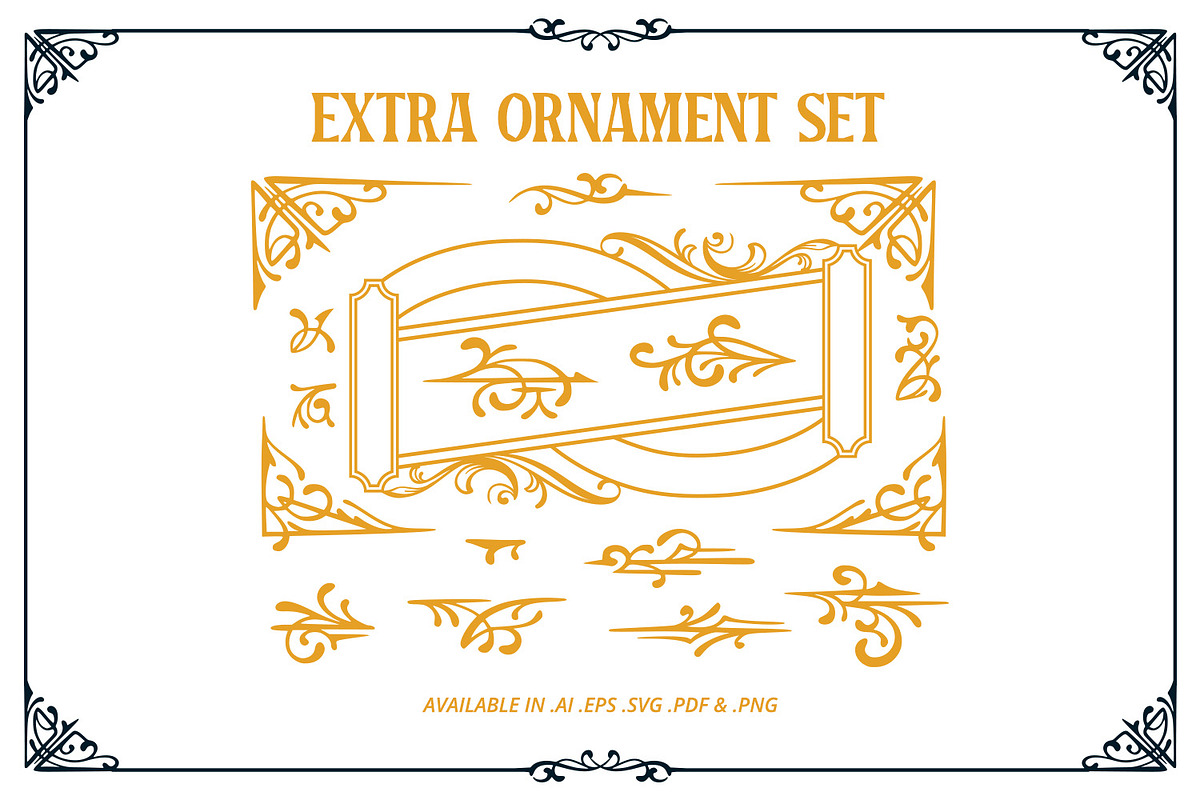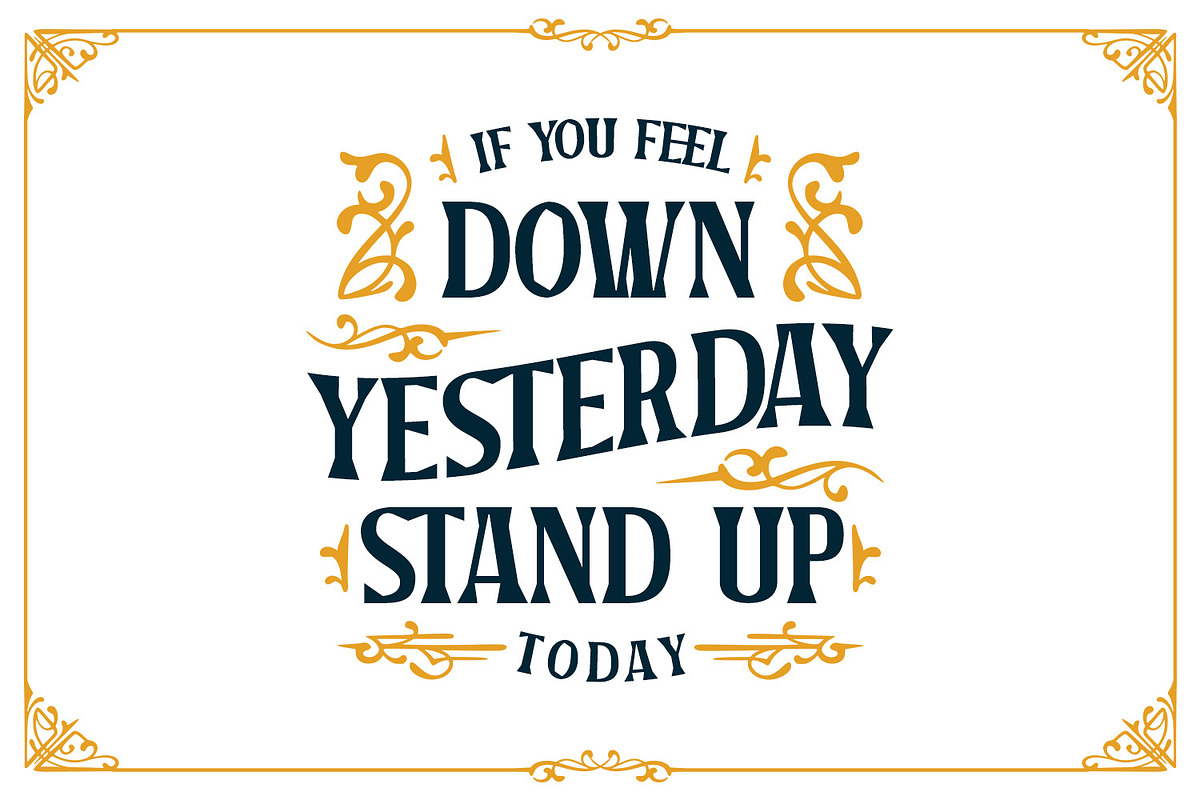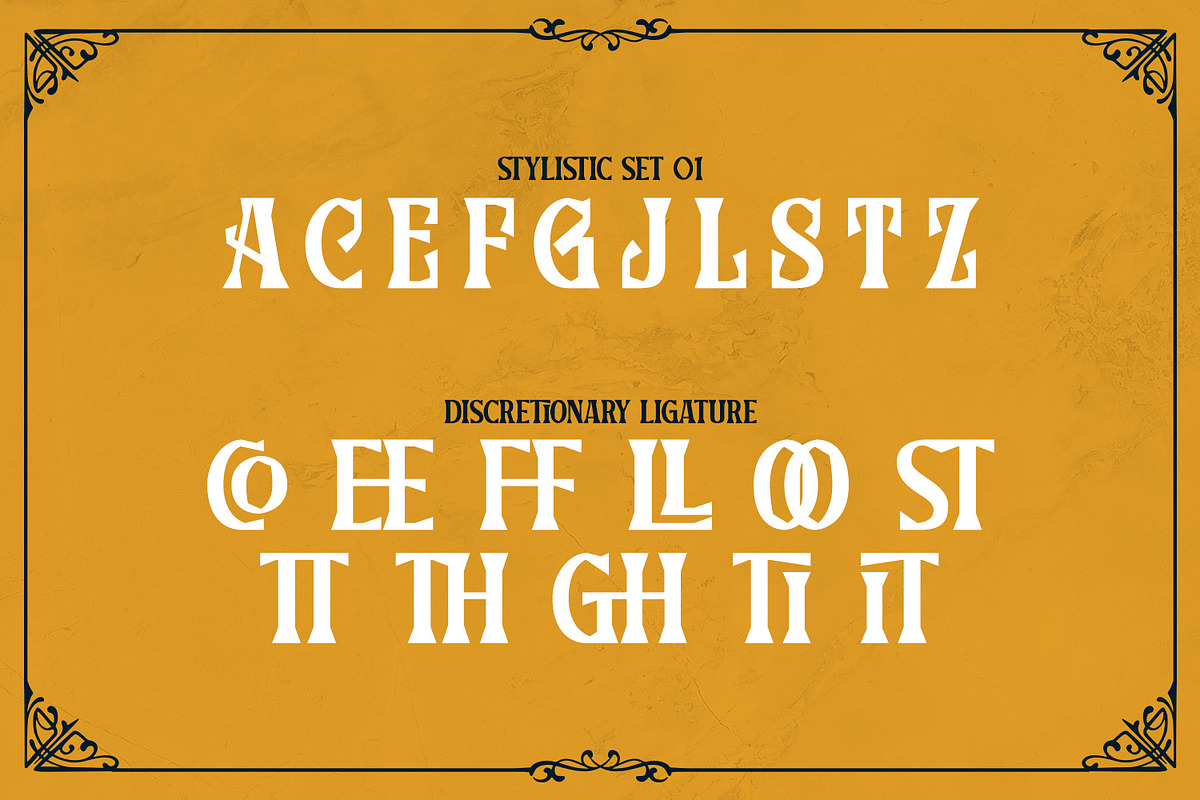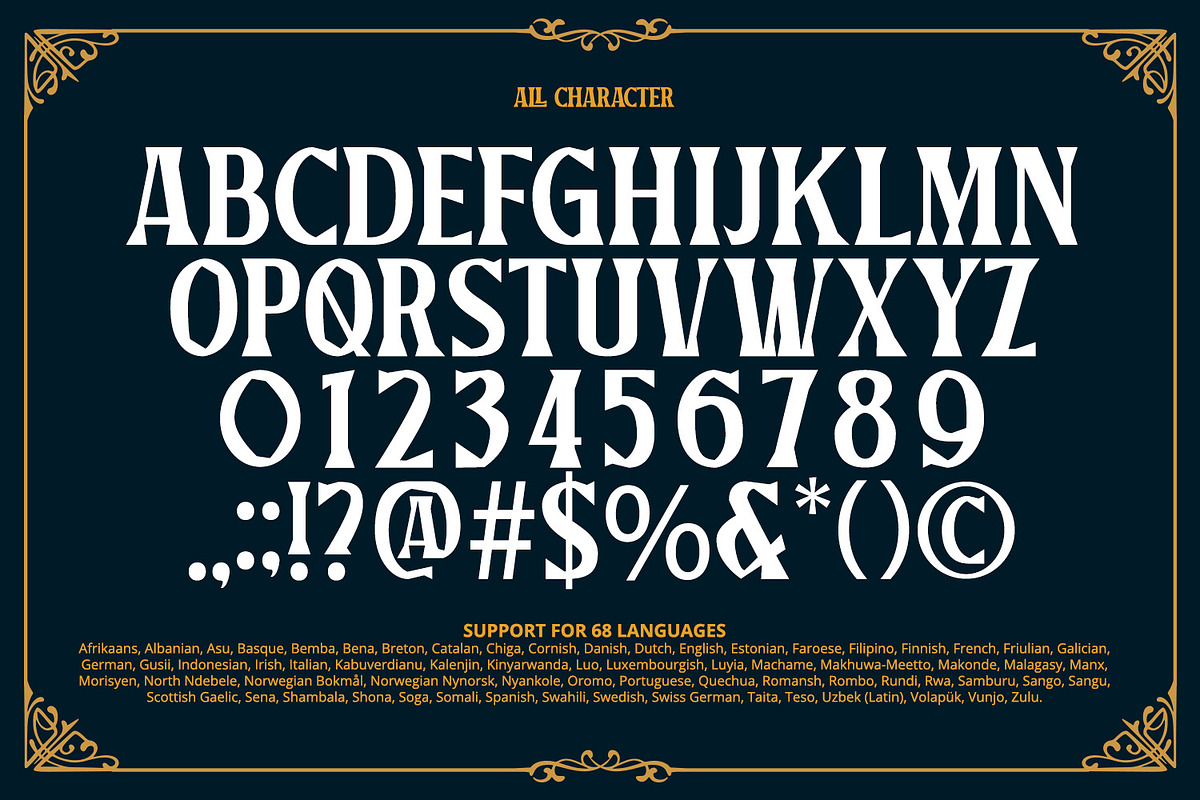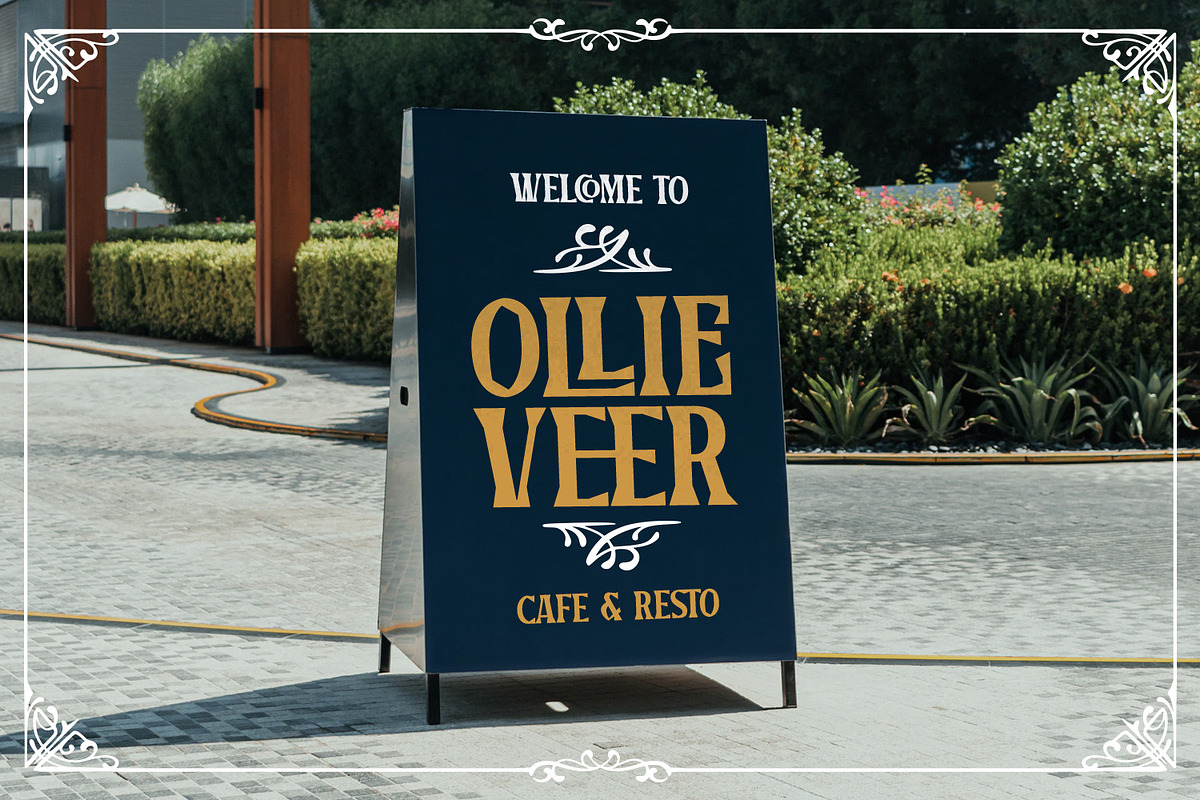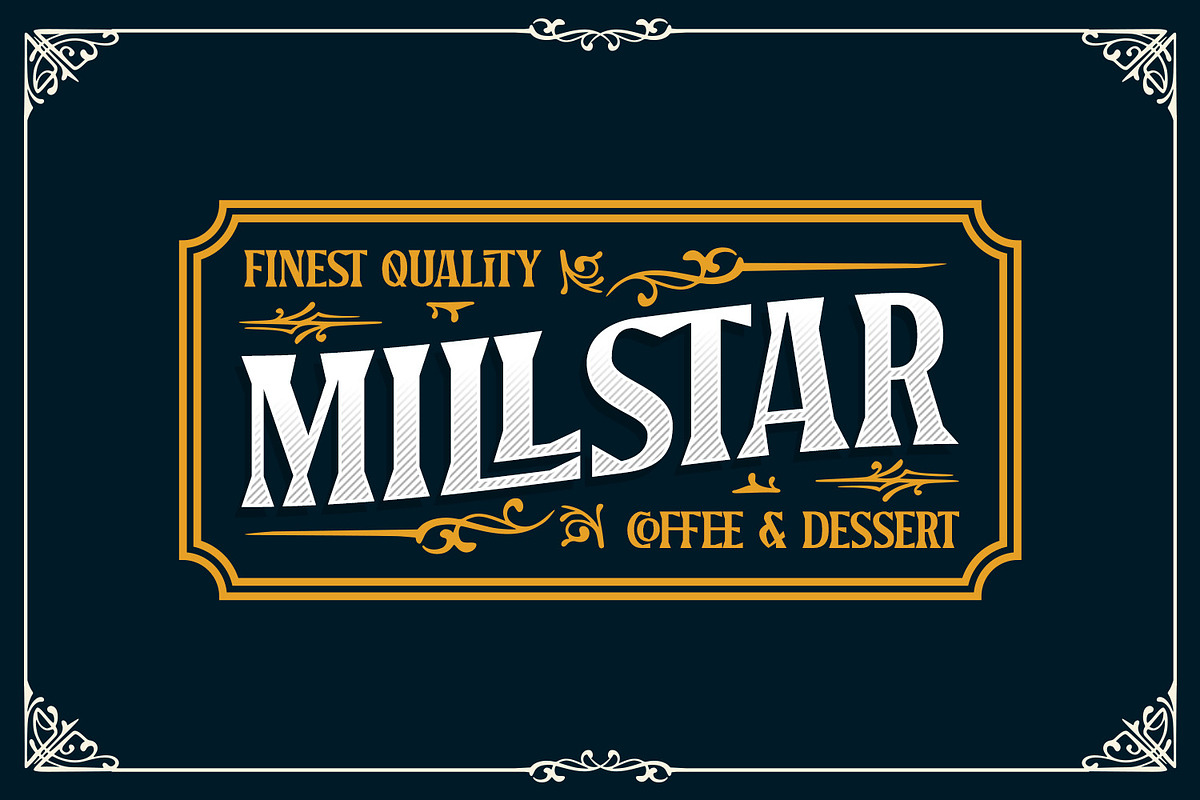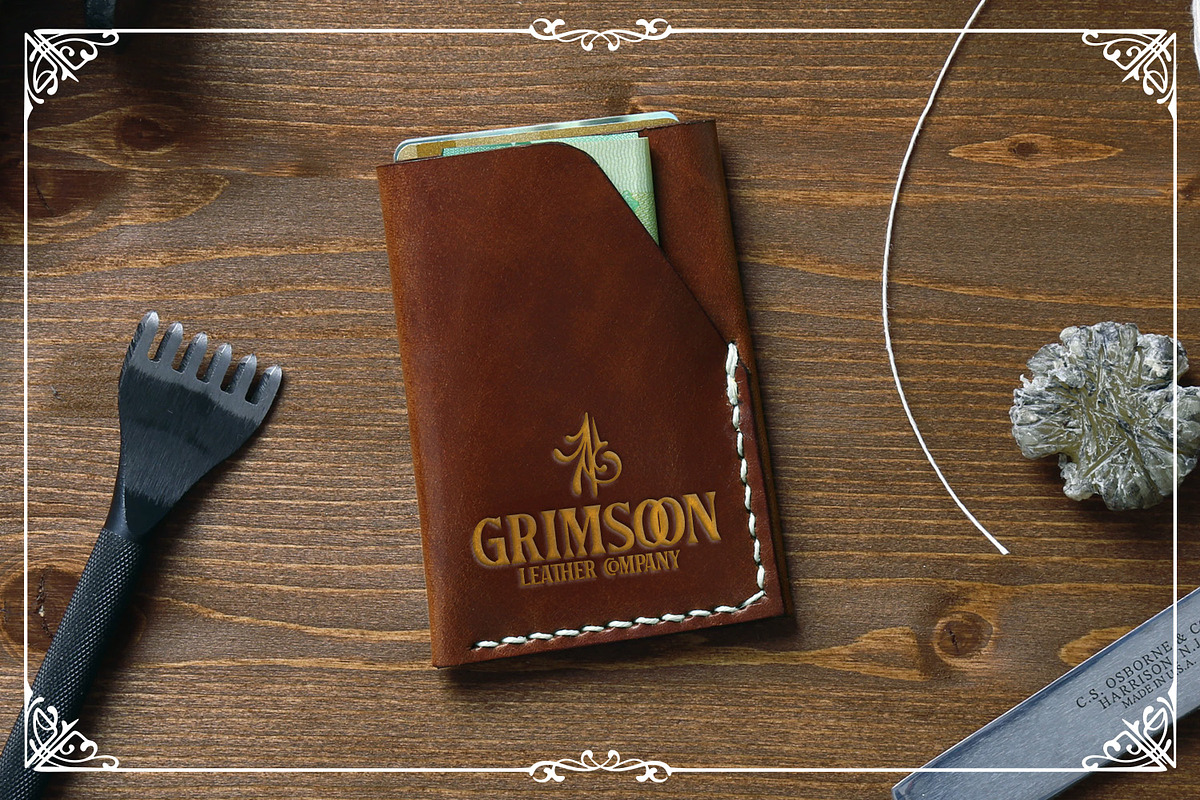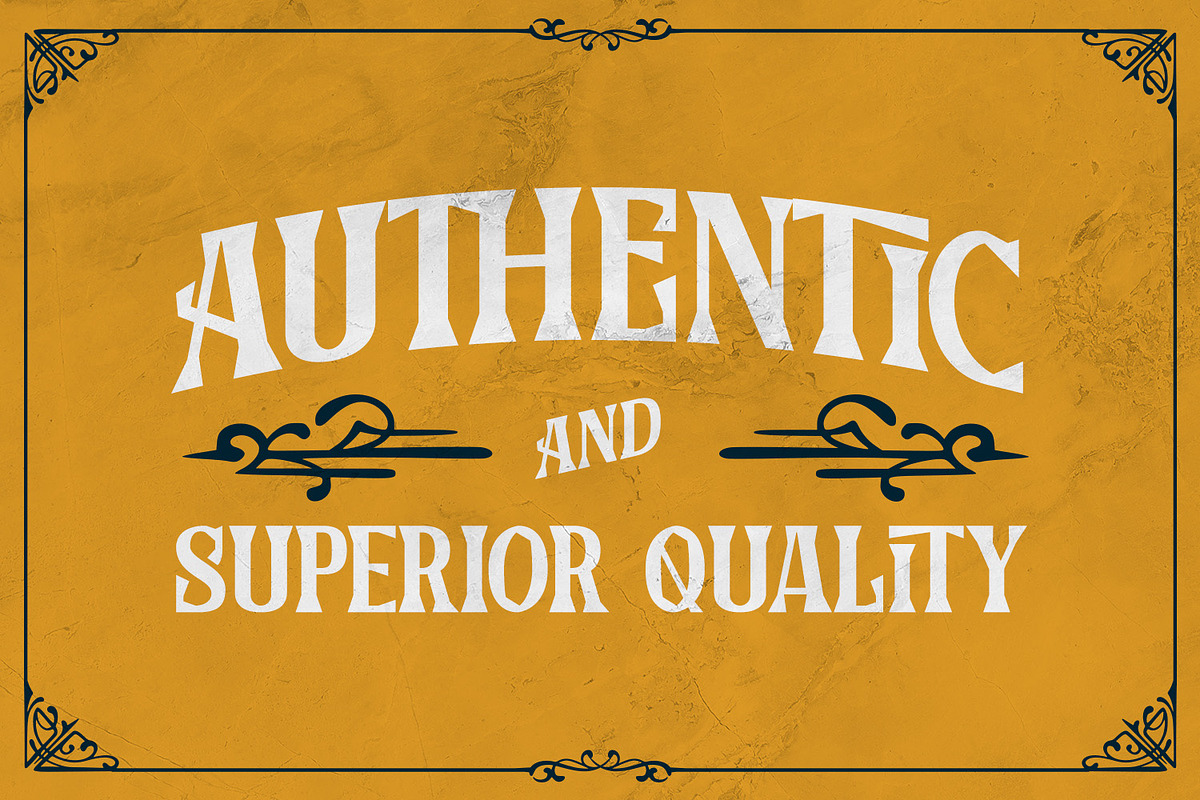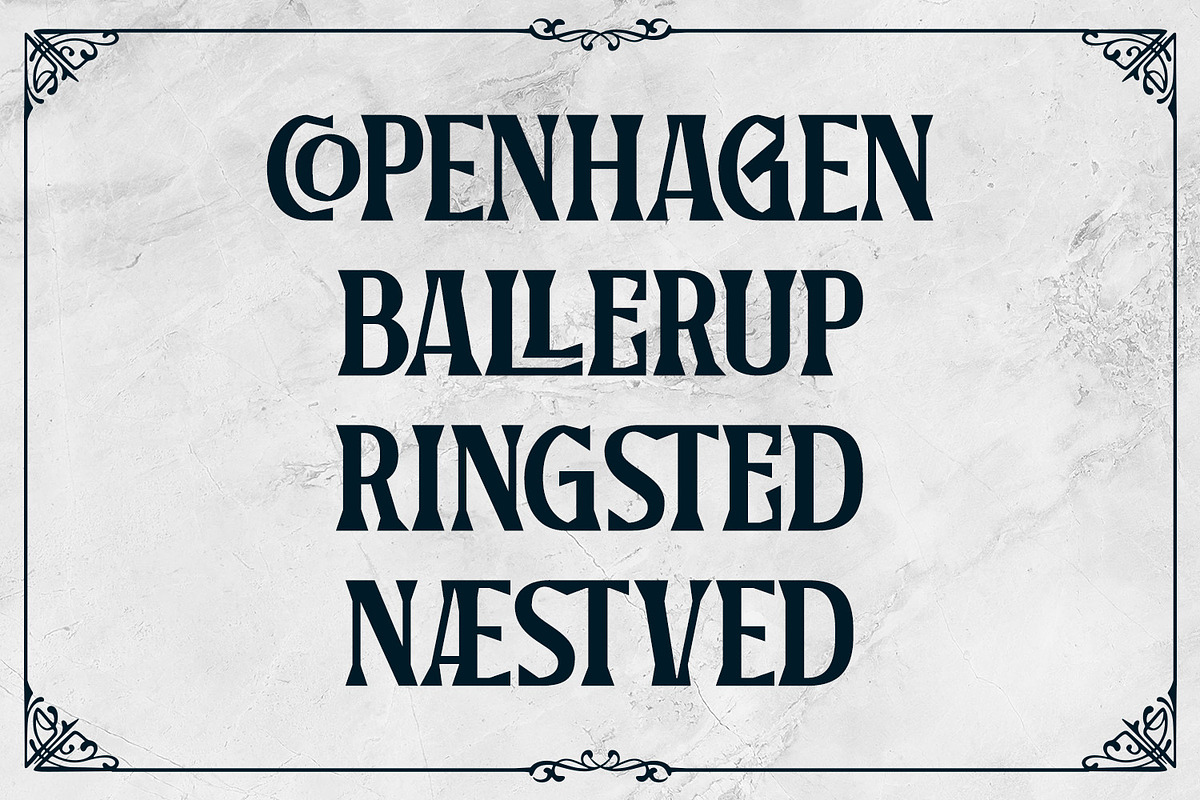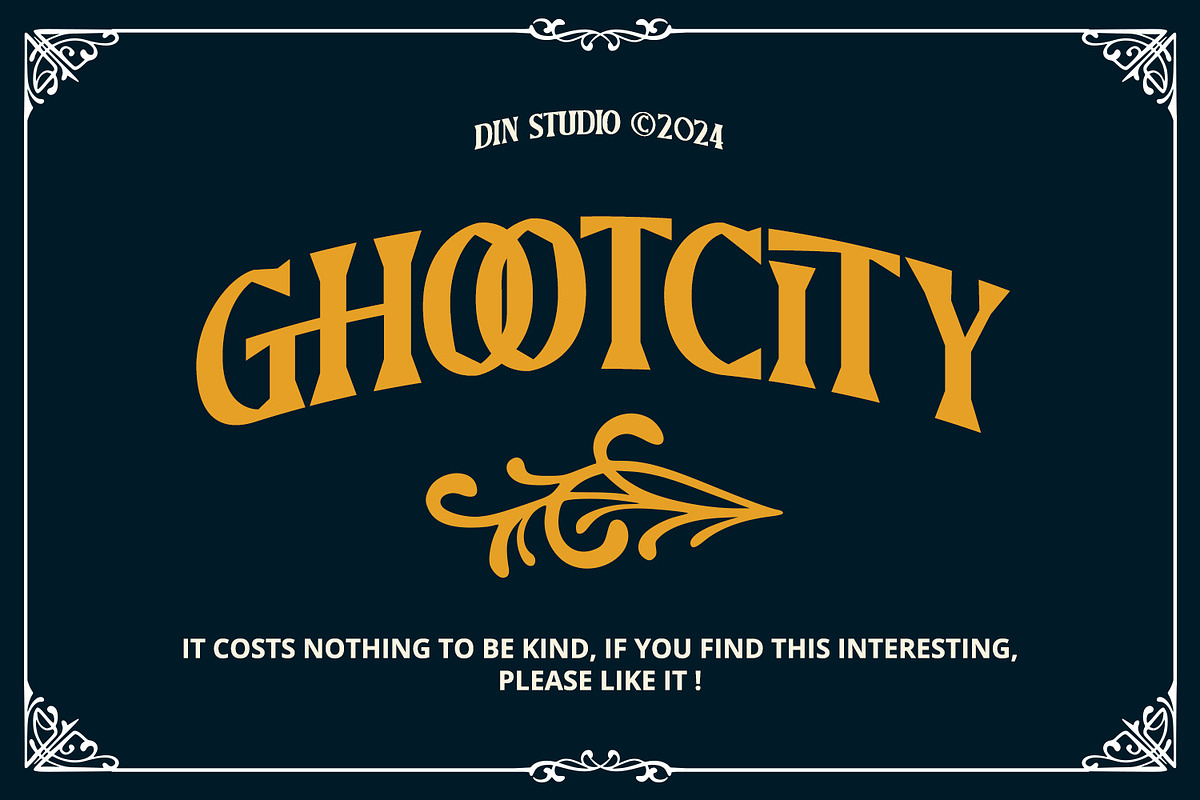
Ghootcity
Introducing Ghootcity – a bold, vintage-themed display font that exudes strength and character. Crafted in uppercases with consistent letter proportions. Ghootcity also shows a noticeable contrast that adds depth and visual interest. Its sharp-cornered outline enhances the font's striking appearance, while the vintage style brings a nostalgic touch to your designs. As an extra, this font gives ornaments. In addition, enjoy the features here.
Ghootcity fits in logos, posters, flyers, branding materials, print media, editorial layouts, and many more designs. Find out more ways to use this font by taking a look at the font preview.